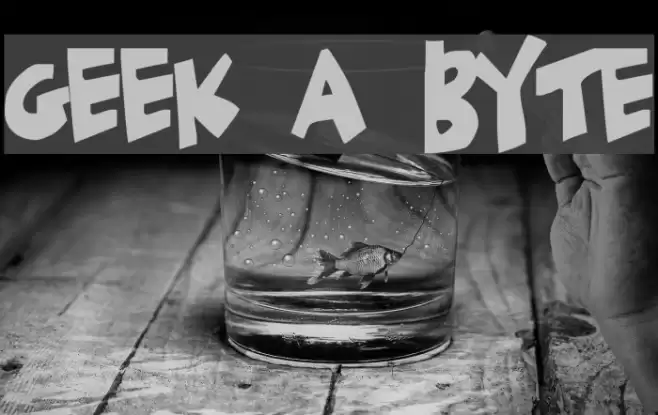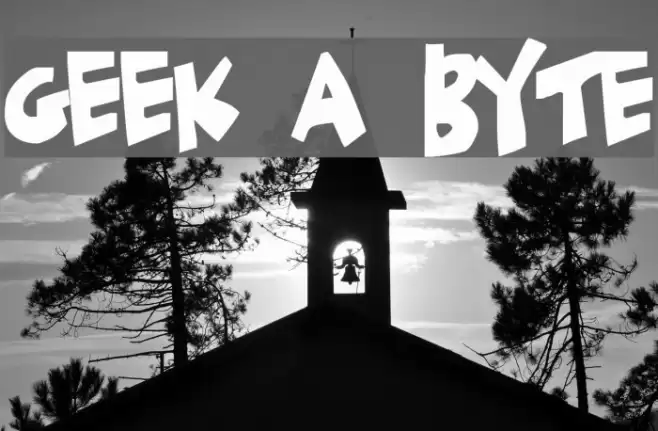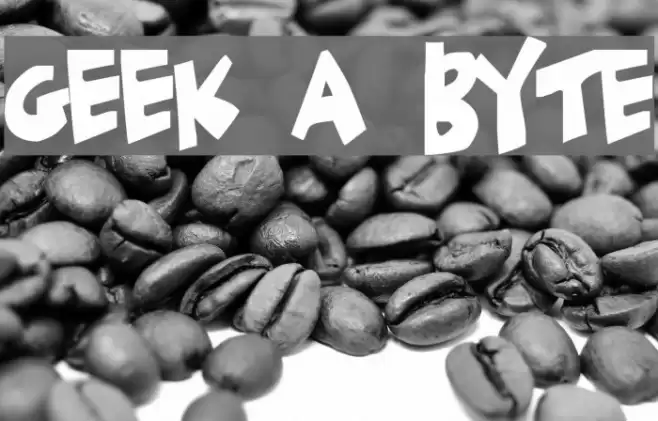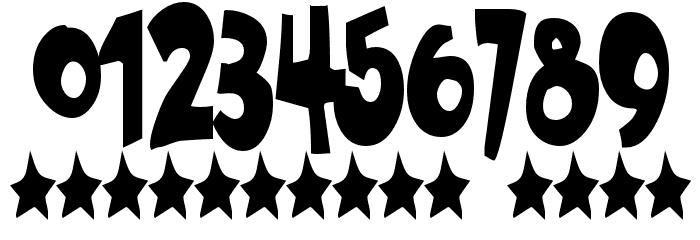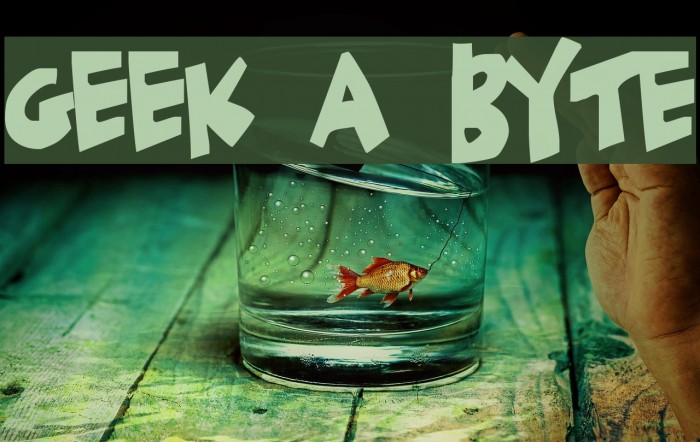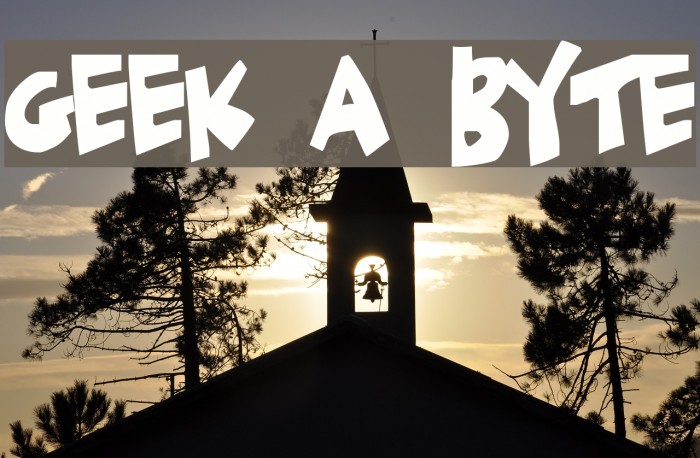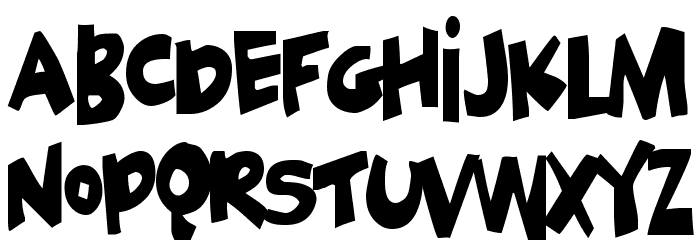
Geek a byte Font
Geek a byte Description
This font features a bold, playful style with exaggerated, cartoonish letterforms. The characters have a hand-drawn appearance, with irregular shapes and varying stroke widths that add to its whimsical and informal look. The uppercase letters are particularly striking, with some characters having unique, quirky elements that make them stand out. The numbers follow the same playful design, ensuring consistency across all characters. This font is highly decorative, making it ideal for projects that require a fun and engaging visual impact.
A bold, playful, and cartoonish font with a hand-drawn appearance from Kids fonts.
- Proposed Projects: Ideal for children's books, comic strips, playful branding, and party invitations.
- Overall Style: Playful and Cartoonish